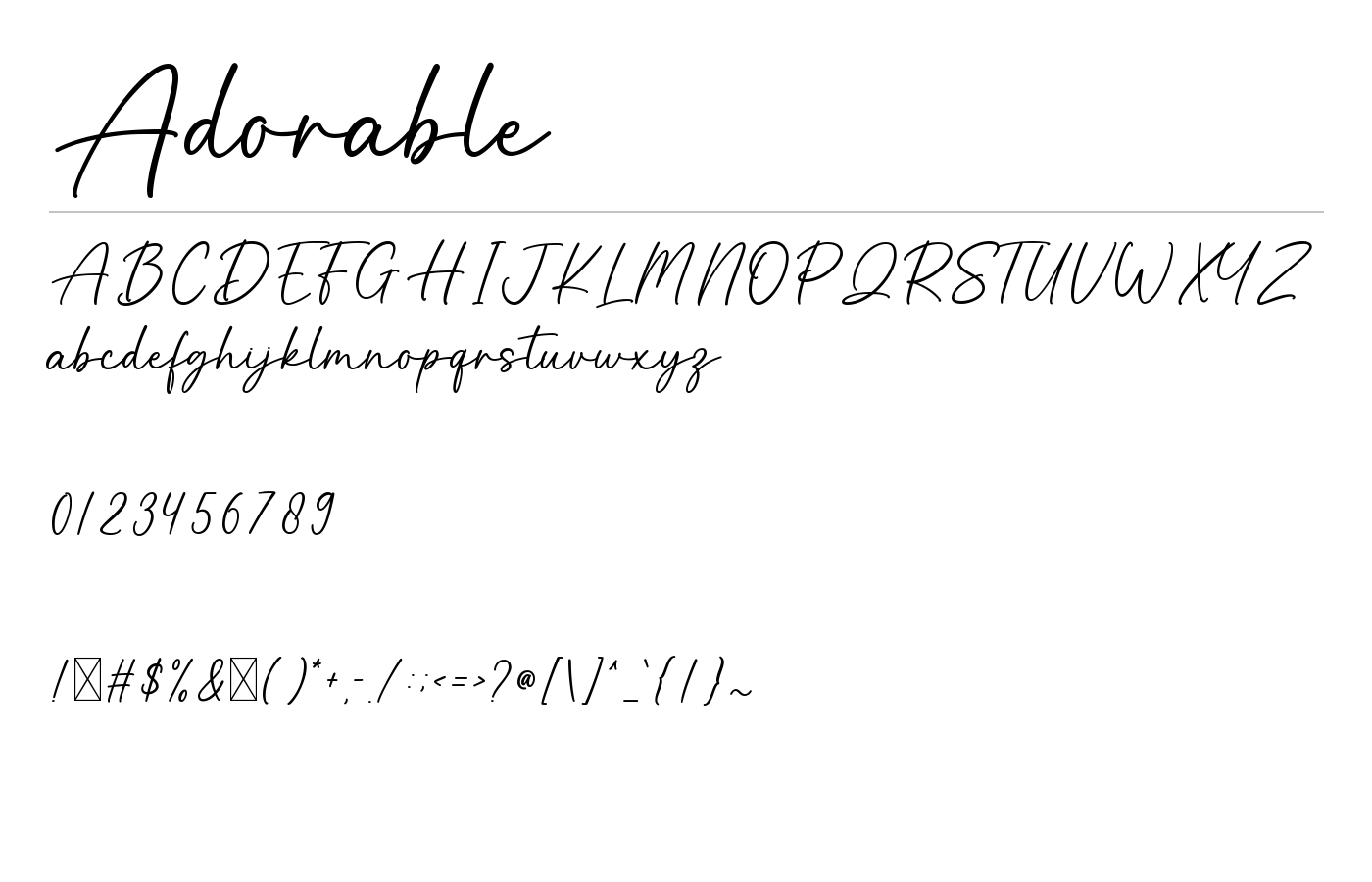
Adorable Font is a delicate and elegant script typeface with a light, airy feel and smooth, flowing strokes that mimic natural handwriting. Its slender, slightly condensed letterforms and subtle variations in line thickness give it a charming and personal touch, making it ideal for invitations, branding, and products that seek a friendly, stylish, and intimate vibe. This font works beautifully in designs that need a graceful yet approachable look, especially for lifestyle, fashion, and creative projects.
Adorable Font
About Adorable Font
| Font family | Adorable Font |
| Designer | Aldi Raya pradipta |